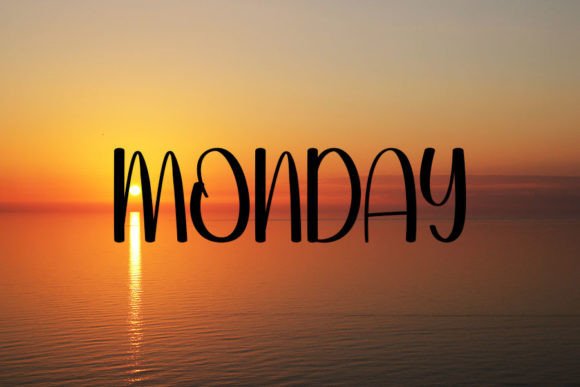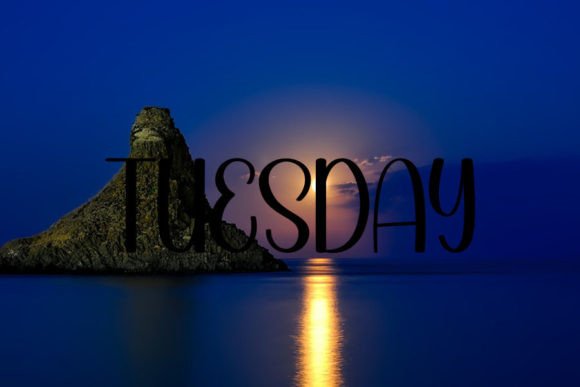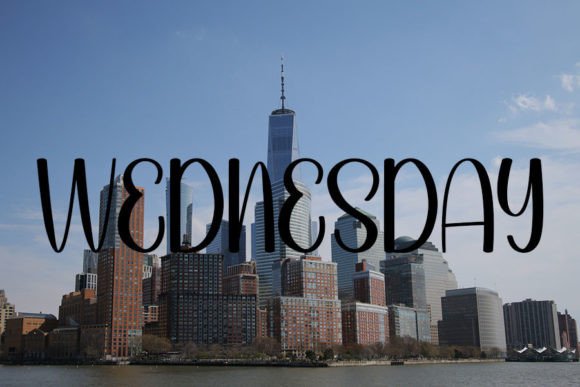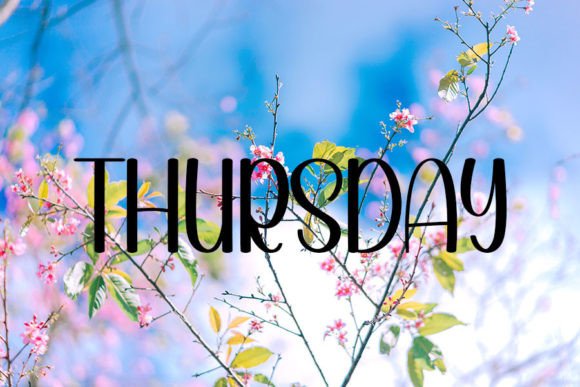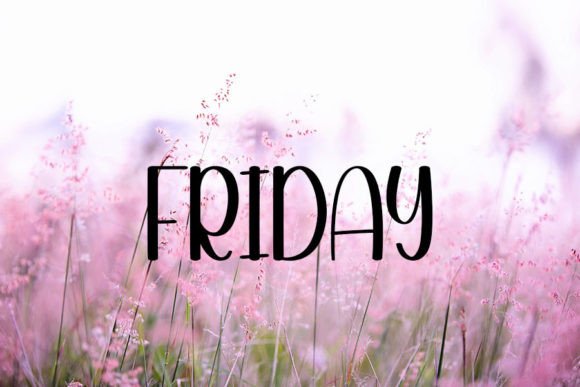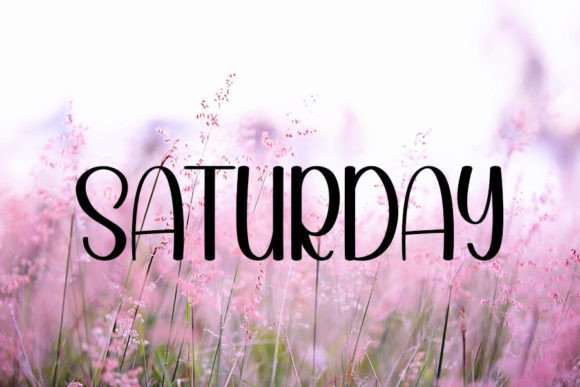
Introducing February Font: Elevate Your Designs with Elegance
Are you on the hunt for a font that adds a touch of sophistication and charm to your projects? Look no further than February Font, a stunning handwritten font that is sure to capture your heart. With its elegant touch and timeless style, February Font is the perfect addition to your design arsenal.
The Beauty of February Font
February Font is described as a neat and beautiful handwritten font, and for good reason. Its incredibly distinct style sets it apart from other fonts, making it a standout choice for designers and crafters looking to add a personal touch to their work. The font’s elegant touch is perfect for creating sophisticated designs that exude refinement and poise.
What Makes February Font So Special?
So, what makes February Font so special? For starters, its timeless style ensures that your designs will never go out of fashion. Whether you’re working on a logo, branding materials, or a personal project, February Font is sure to impress. Its versatility is also a major draw, making it suitable for a wide range of applications, from digital designs to print materials.
February Font is a dream come true for designers and crafters looking to elevate their work. With its beautiful, handwritten style, it’s perfect for creating:
- Logos and branding materials that make a lasting impression
- Social media graphics that stand out from the crowd
- Invitations and stationery that exude elegance
- Digital designs, such as website headers and email newsletters
- Print materials, including brochures, flyers, and posters
Tips for Using February Font
To get the most out of February Font, here are a few tips to keep in mind:
- Use it sparingly: February Font is a statement font, so use it sparingly to make a lasting impression.
- Pair it with other fonts: Experiment with pairing February Font with other fonts to create a unique look.
- Adjust the size: Play around with different font sizes to add visual interest to your designs.
- Experiment with colors: February Font looks stunning in a range of colors, so don’t be afraid to experiment.
Why Choose February Font?
With so many fonts to choose from, why choose February Font? Here are just a few reasons:
- Unique style: February Font has an incredibly distinct style that sets it apart from other fonts.
- Elegant touch: The font’s elegant touch adds a touch of sophistication to any design.
- Timeless appeal: February Font’s timeless style ensures that your designs will never go out of fashion.
- Versatility: The font is suitable for a wide range of applications, from digital designs to print materials.
Get Ready to Fall in Love with February Font
With its beautiful, handwritten style and elegant touch, February Font is sure to capture your heart. Whether you’re a designer, crafter, or simply someone who appreciates great design, February Font is a must-have addition to your font collection.
In conclusion, February Font is a stunning handwritten font that is sure to elevate your designs. With its elegant touch, timeless style, and versatility, it’s the perfect choice for designers and crafters looking to add a touch of sophistication to their work. So why wait? Fall in love with February Font today and start creating spectacular designs that will leave a lasting impression.